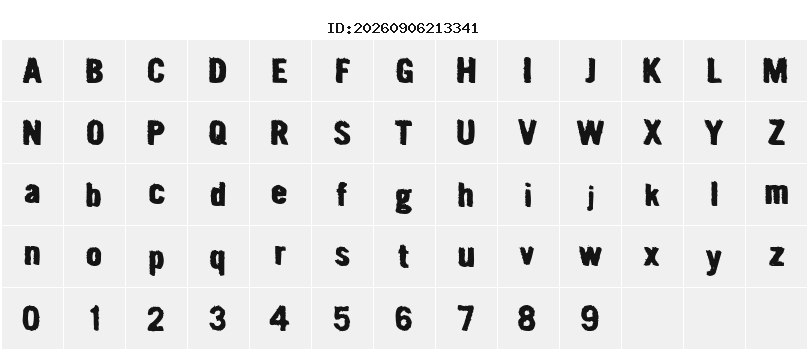
Urban Preview
• Font Name: Urban
• Full Font Name: Urban
About Urban.ttf
Urban.ttf is a modern, elegant sans-serif font designed for ultimate readability and visual harmony. Perfect for branding, headlines, web design, and print materials.